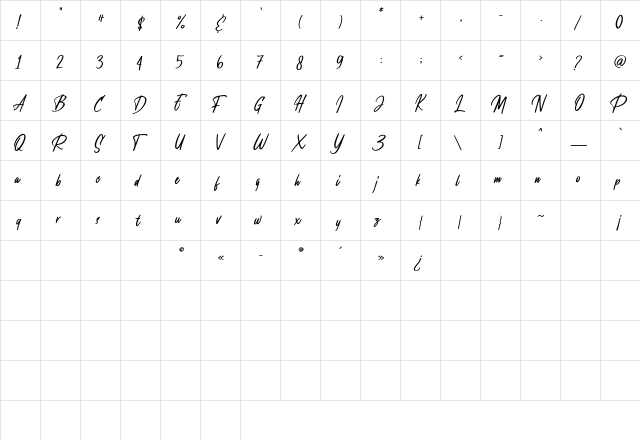
Ballmont Regular
Design Context for Ballmont Typeface
Ballmont is a composed and adaptable typeface that performs quietly and consistently across a wide range of design contexts.